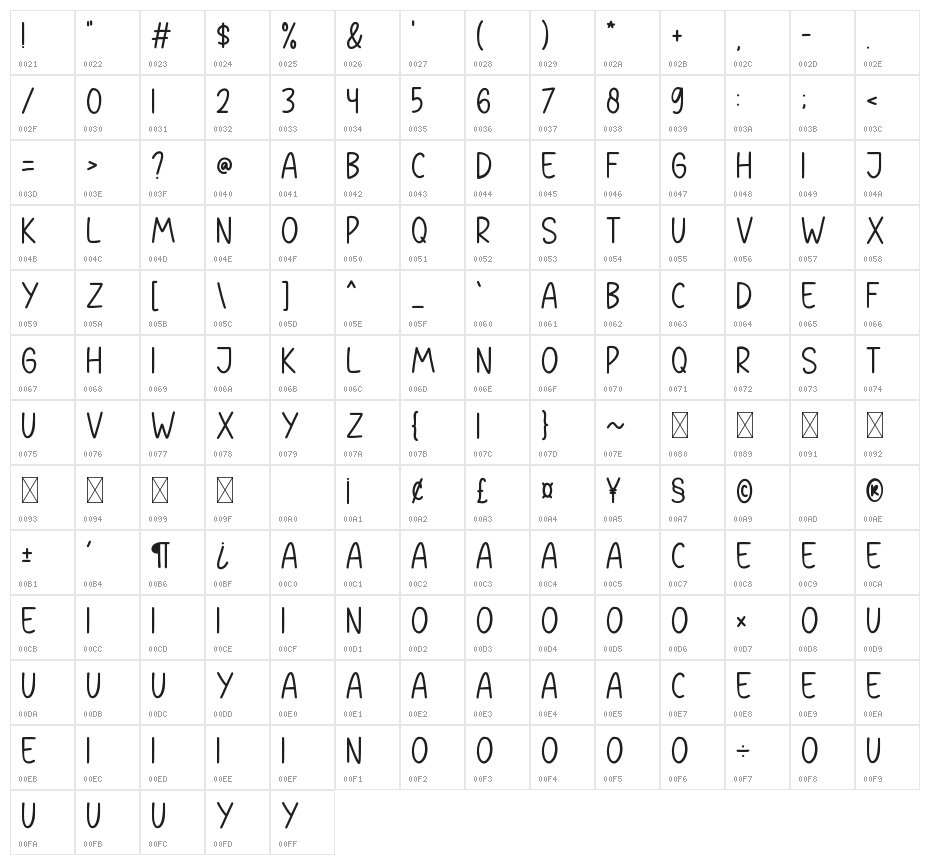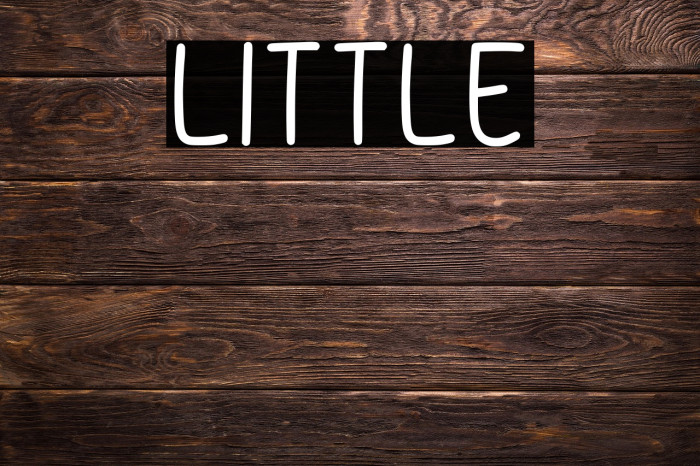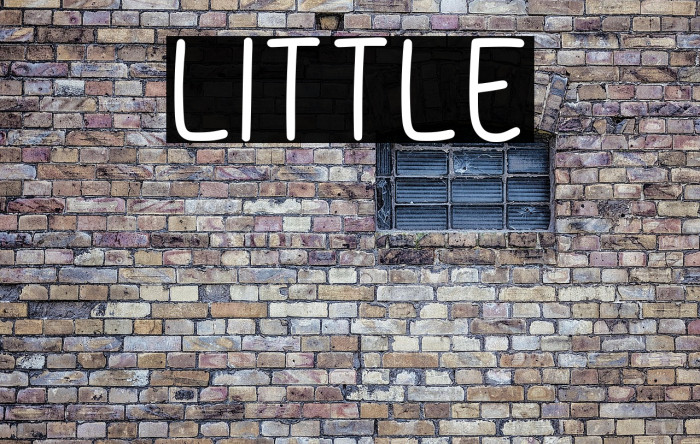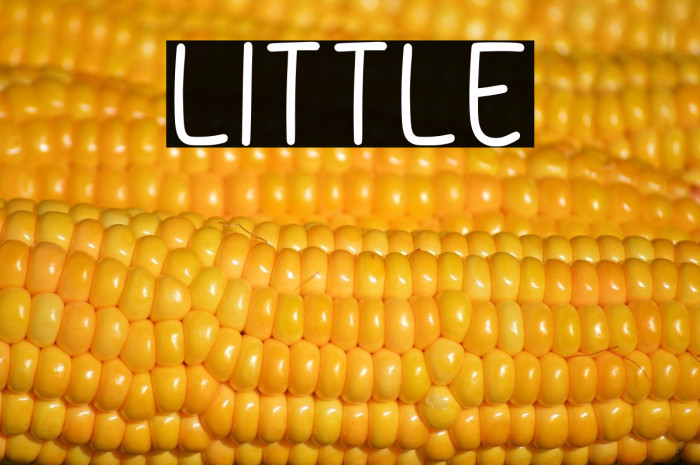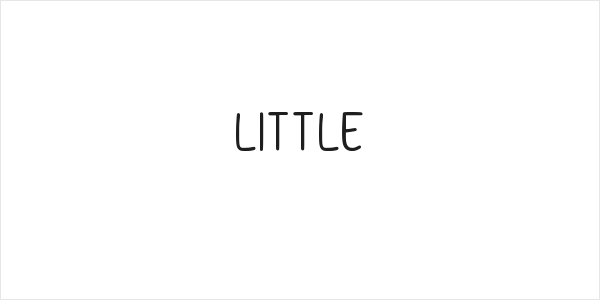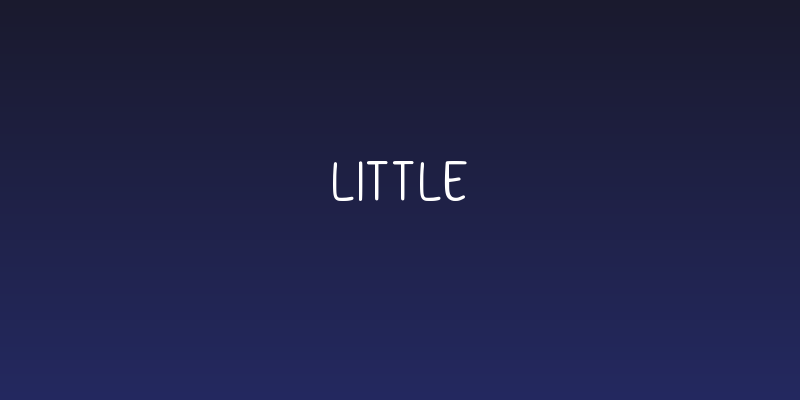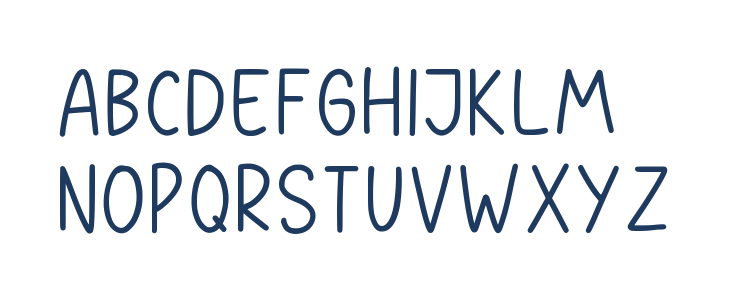
Little Font
Little Description
This font features a playful and casual handwritten style, characterized by its rounded and slightly irregular letterforms. The strokes are consistent in width, giving it a uniform appearance, while the slight slant and uneven baseline add a touch of whimsy. The uppercase and lowercase letters maintain a friendly and approachable look, making it suitable for informal and creative projects. The numerals and special characters are designed to complement the overall aesthetic, ensuring readability and coherence across different uses.
| Overall Style | Casual |
| Use Case | Headlines, Informal text, Creative projects |
| Proposed Projects | Ideal for children's books, greeting cards, casual branding, and playful social media graphics. |